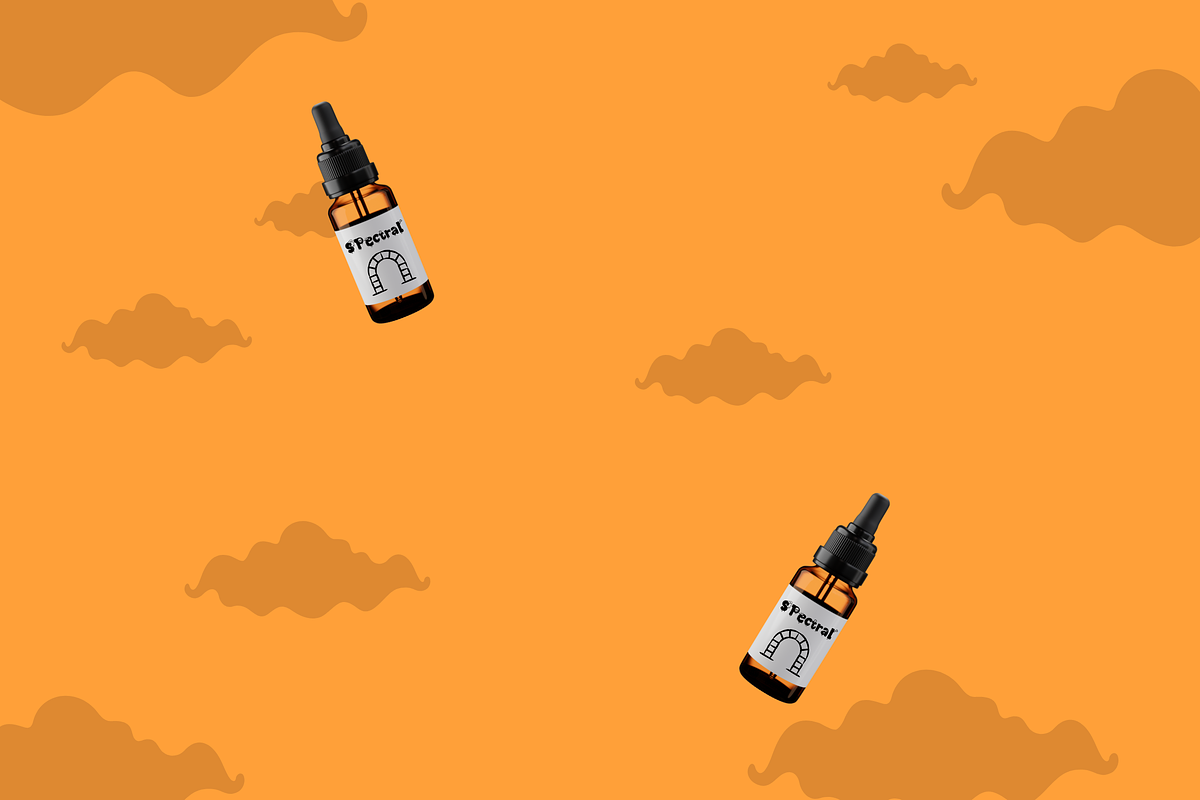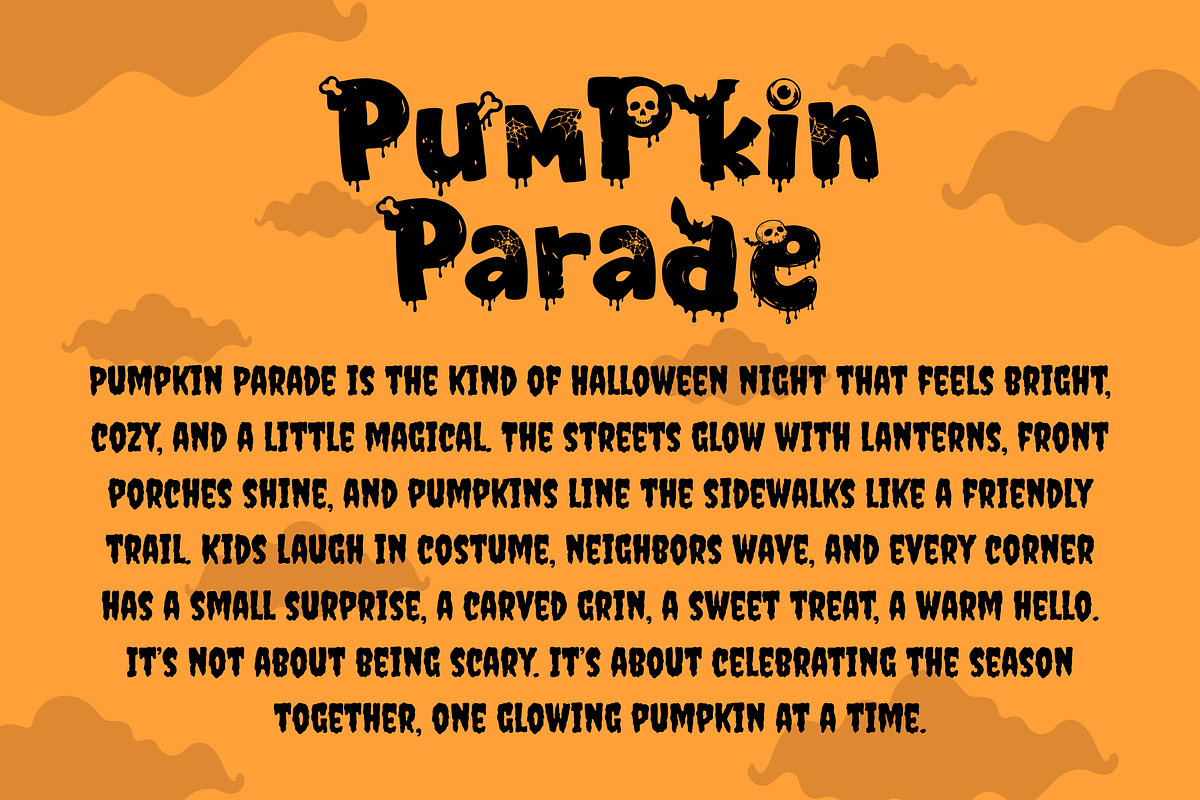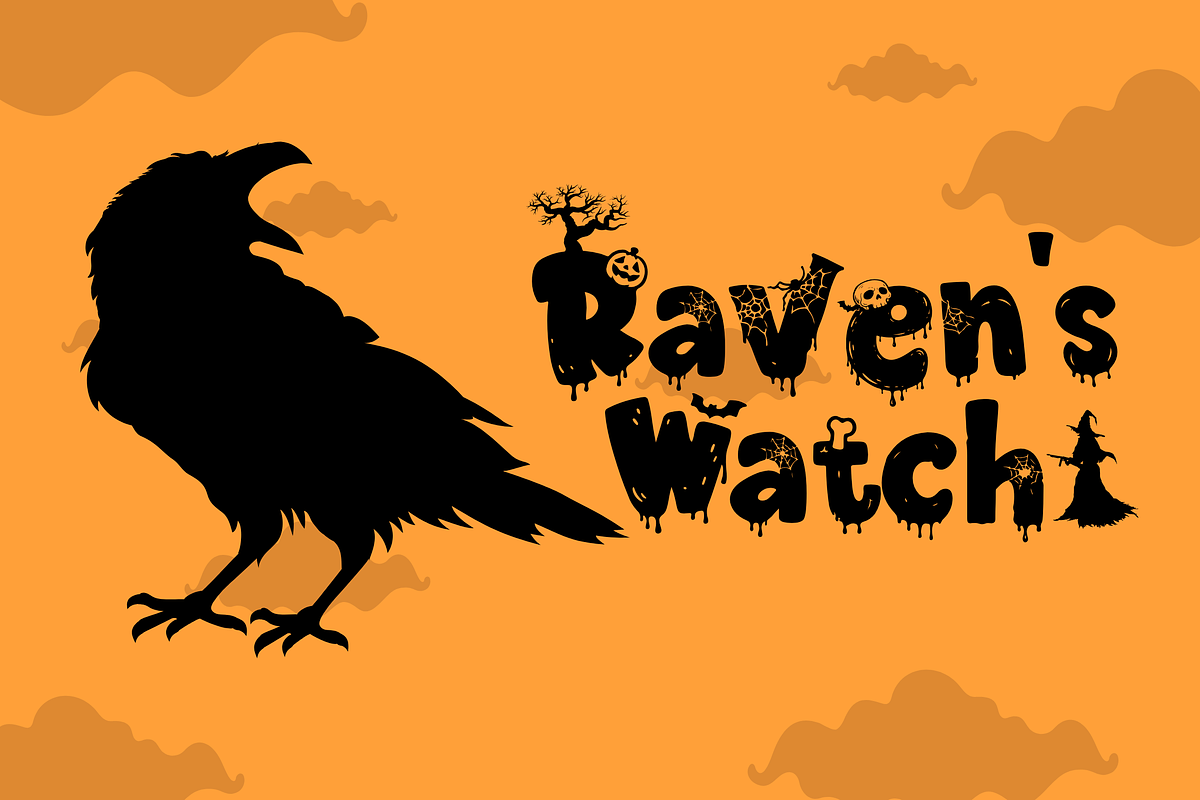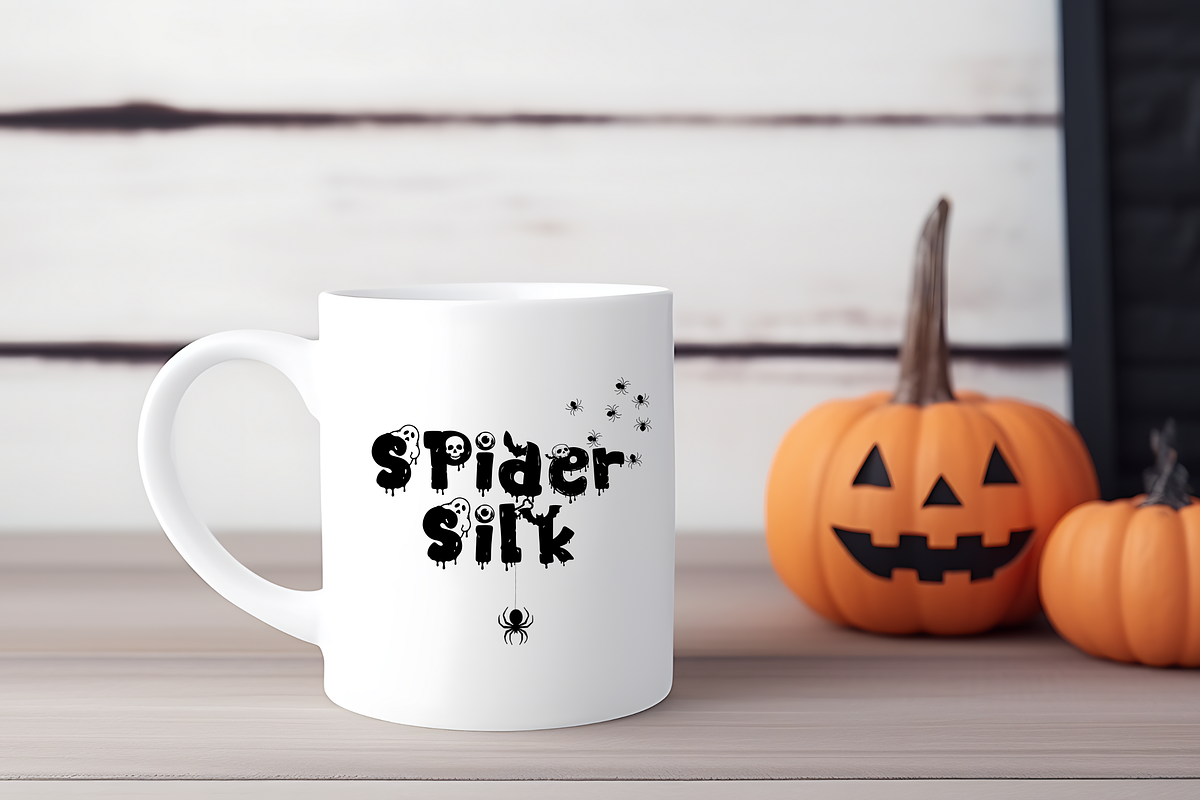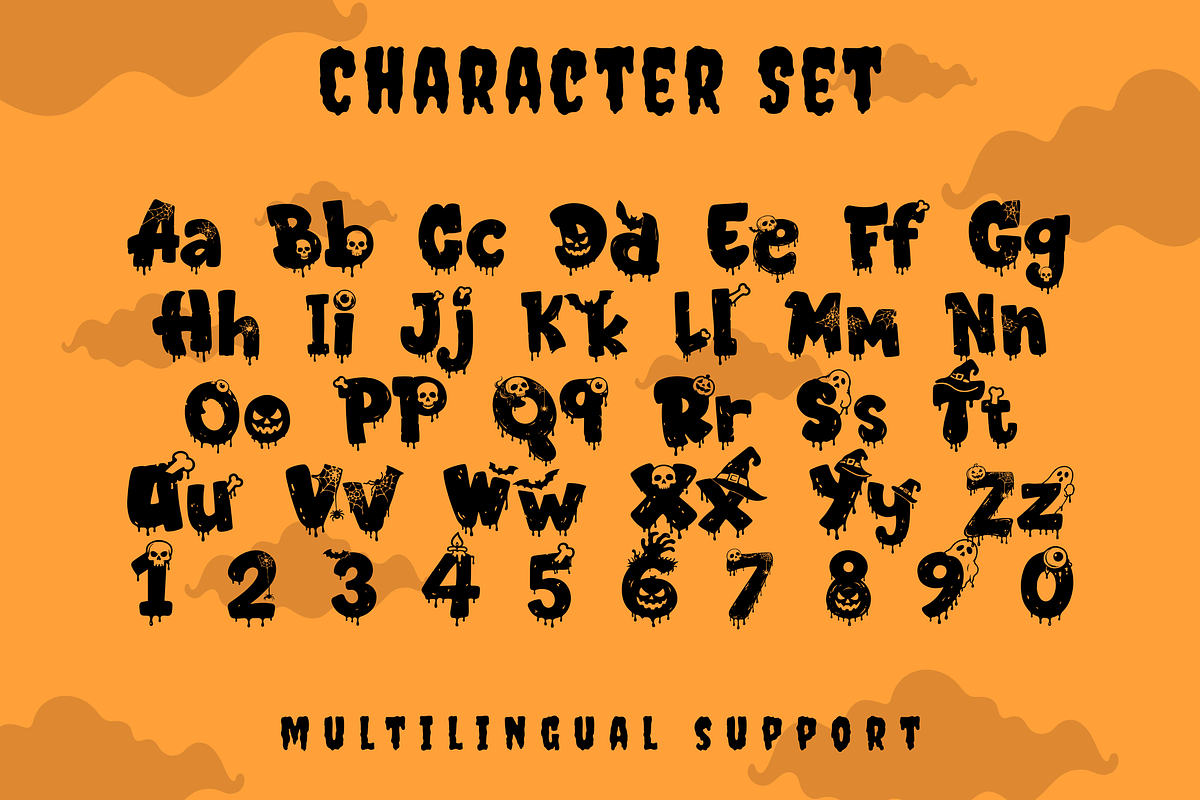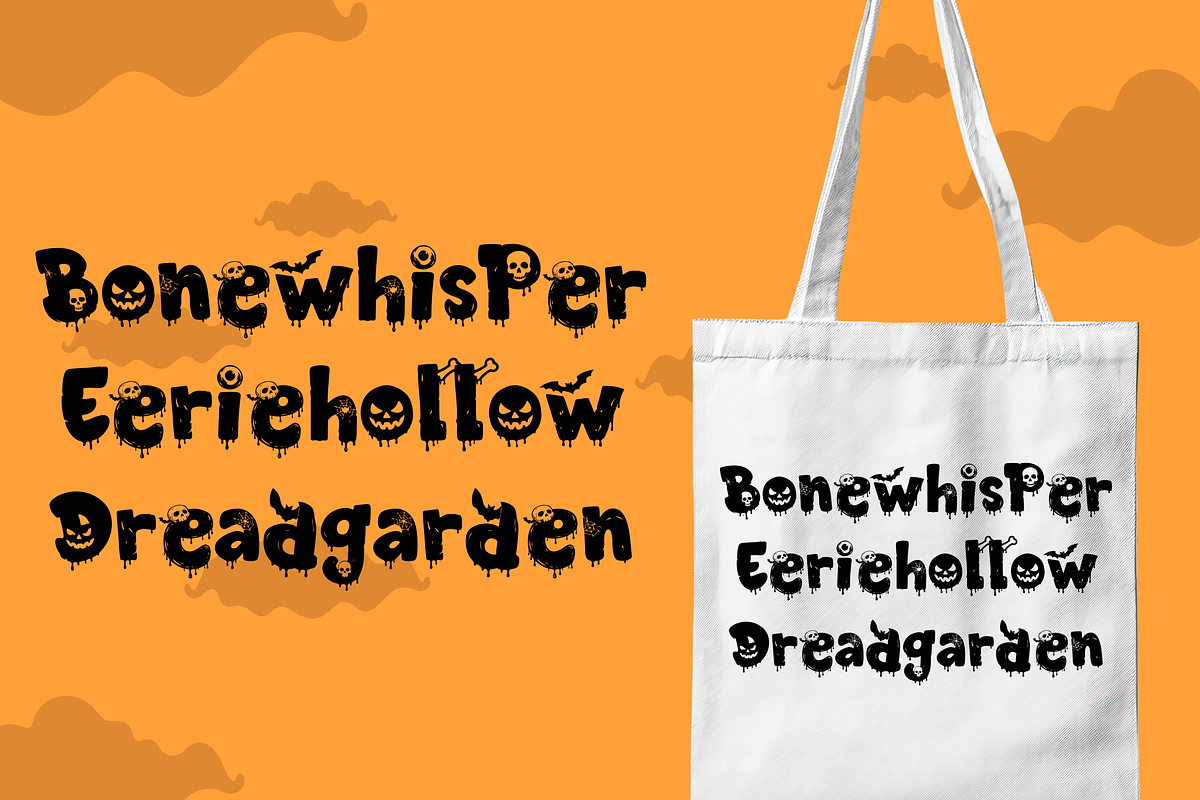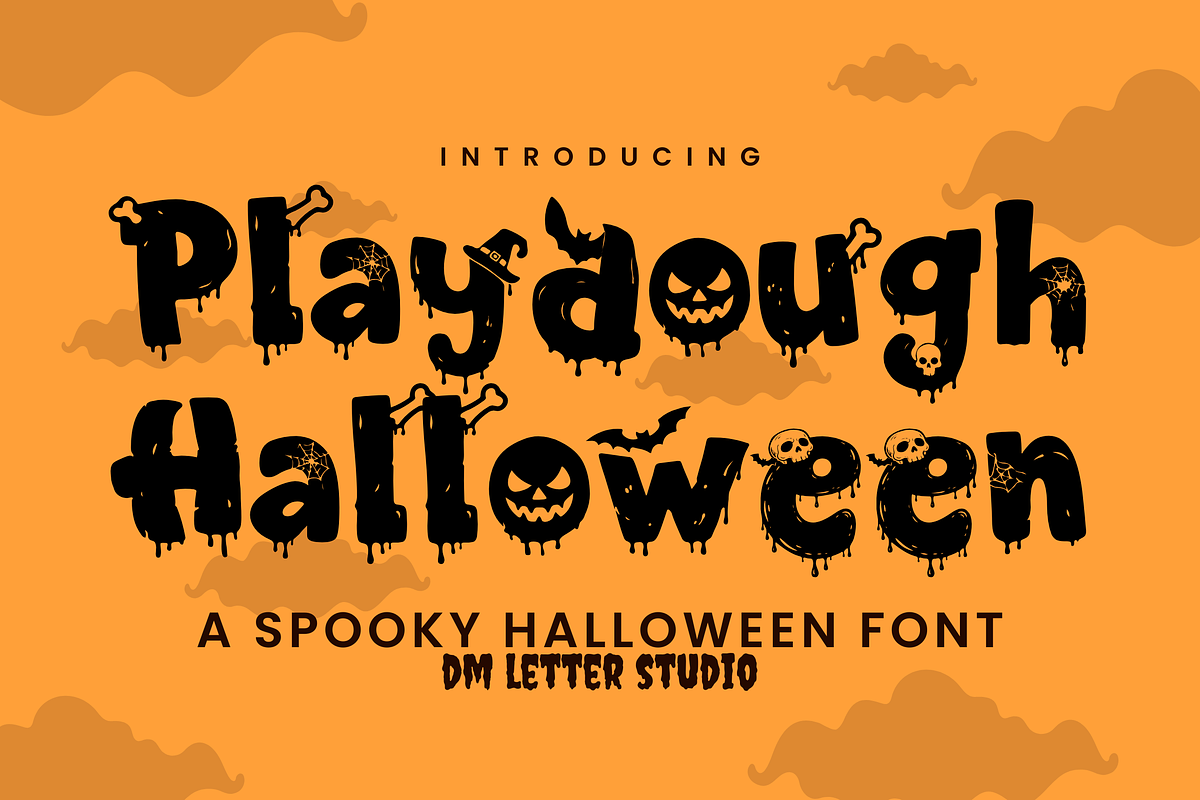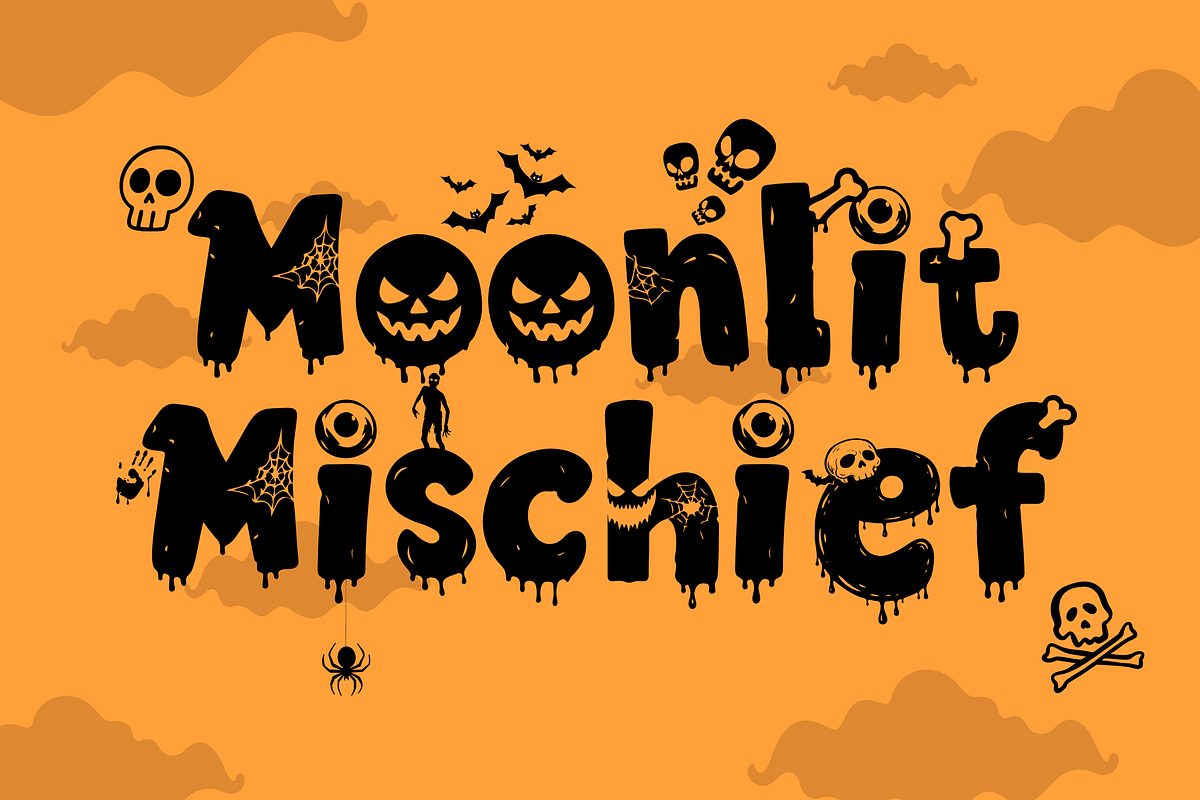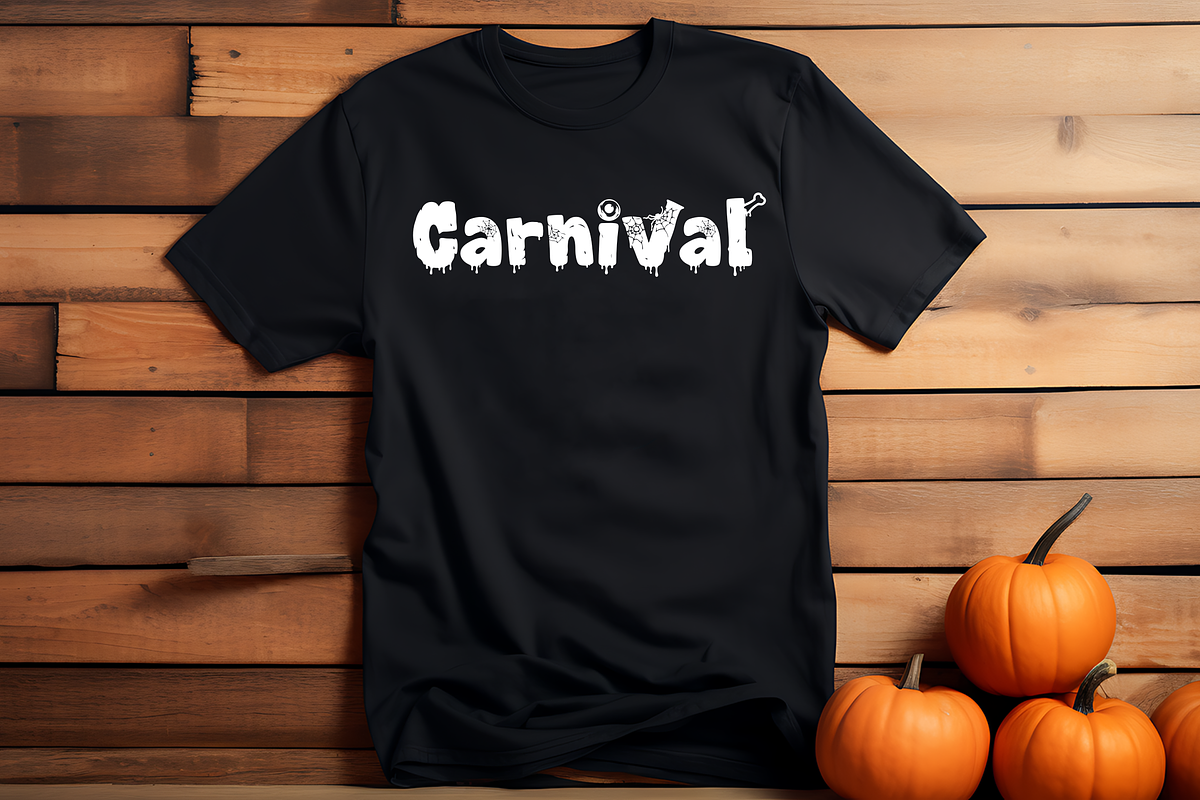
Playdough Halloween Font
Meet Playdough Halloween, the Gooey Playful Halloween Font
Playdough Halloween Font is a chunky, squishy display font with a spooky twist. Inspired by soft clay shapes and playful monster vibes, it feels fun, bold, and slightly creepy in the best way. The rounded, gooey letterforms stay thick and readable, so they work perfectly from small stickers to big Halloween headlines. Use it for Halloween cards, party posters, kids designs, packaging, stickers, apparel, and seasonal social posts. As a result, your Halloween designs feel playful, spooky, and impossible to ignore.
Fast layouts with the Playdough Halloween Font
Start with short, punchy words and let the gooey shapes do the work. After that, add supporting text in a clean sans font for contrast. Because Playdough Halloween has soft, rounded forms, it works especially well in stacked layouts, bubbles, and badge-style designs. In addition, it shines on stickers, labels, classroom decor, and party signage. Finally, try color pairs like slime green & black, pumpkin orange & purple, neon lime & charcoal, or ghost white & ink to lock in the Halloween vibe.
Creative uses and quick wins
- Halloween cards, posters, and party signs
- Stickers, decals, and trick-or-treat packaging
- Kids apparel, totes, and seasonal merch
- Classroom decor and playful spooky quotes
Design tips for Playdough Halloween Font